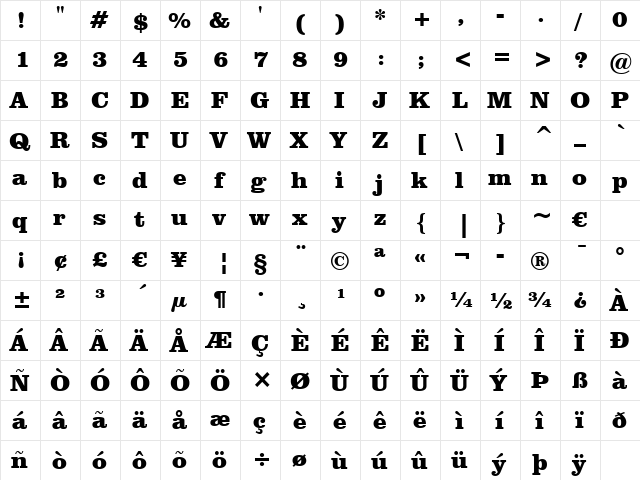
Clarendon Blk BT Black
Design Context for Clarendon Blk BT Typeface
Clarendon Blk BT features prominent, blocky serifs that give it a confident, grounded presence — equally at home in editorial settings and bold branding work.
Works well in editorial design, news publishing, impactful branding, and poster typography.
Pro Tip: Try Clarendon Blk BT set tight in headlines for a classic editorial feel. Its slab serifs create strong horizontal rhythm that anchors a page layout.